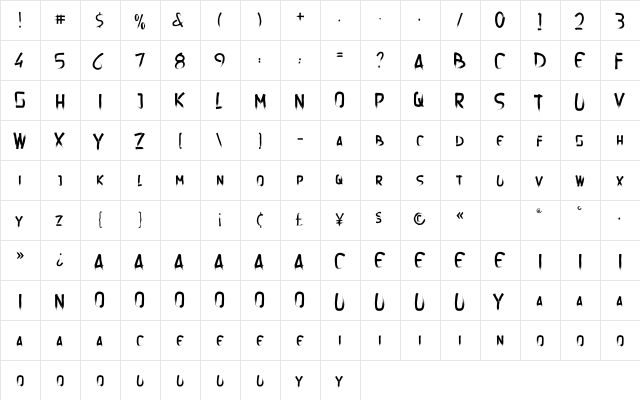
DEGANISIOUS DEMO 3 Regular
| Foundry | CGK-KMY |
| Designer | Nulis Creative |
Design Context for DEGANISIOUS DEMO 3 Typeface
DEGANISIOUS DEMO 3 is a composed and adaptable typeface that performs quietly and consistently across a wide range of design contexts.